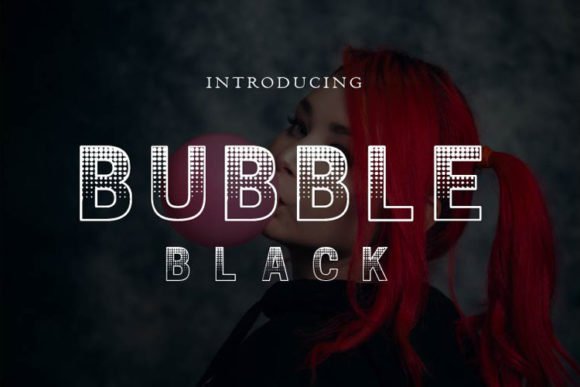
Introduction to Bubble Black Font
Bubble Black is a bold, modern and fashionable display font.
Whatever the topic, this font will be a wonderful asset to your font library, as it has the potential to enhance any creation .
Key Features of Bubble Black Font
Why Choose Bubble Black Font?
Bubble Black Font offers exceptional quality and versatility, making it a valuable addition to your design toolkit. Whether you’re creating for personal projects or commercial use, Bubble Black Font delivers professional results.